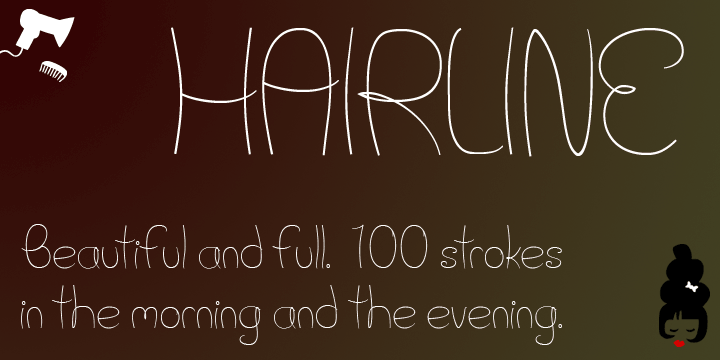
This font came to life on seeing a single hair in the shape of a “B” on a tile in a shower. Inspiration comes in odd forms… Appropriate for headline work.